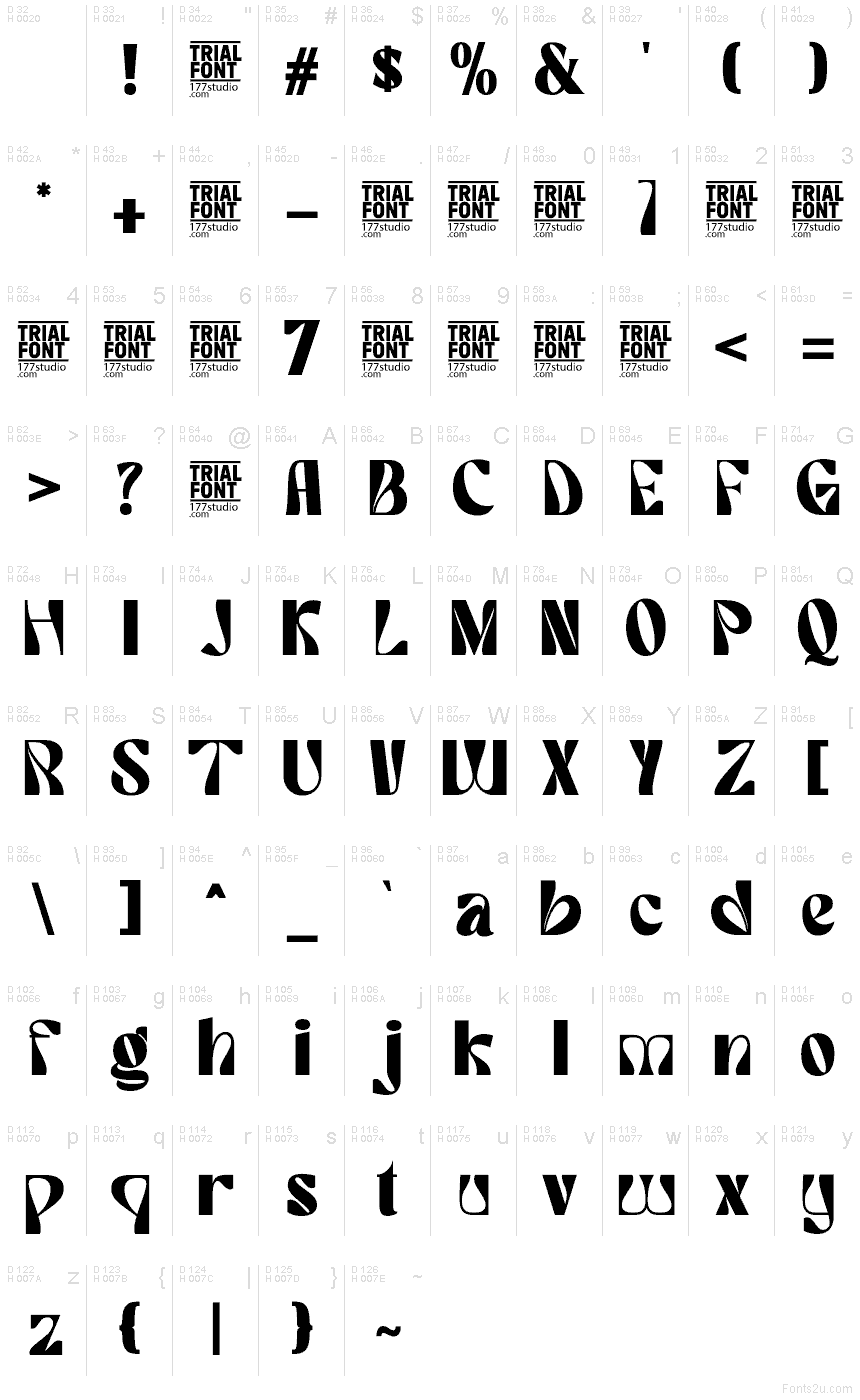
Categories Elegant free serif font immediately captures attention with its bold groovy style. While not overly decorative, each letter is more interesting than the next in a smooth and sophisticated finished look. The design is inspired by retro styles but it can be perfectly used for modern projects that need to impress.
Its uses extend to logo designs, product packing, headlines on posters and magazine covers, social media posts, banners, book covers titles, T-shirt graphic print ideas, brand identities as well as other UX and UI elements.